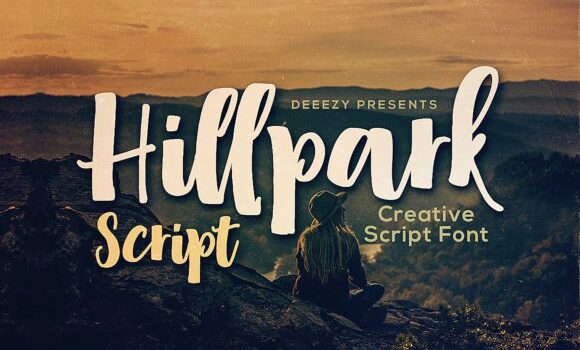
Hillpark Script Font - Featured Image
Hillpark Script Font – Free Download Introduction to Hillpark Script Font The Hillpark is a bold and handwritten style script for all your new projects. 📸 Preview Gallery 6 images 📌 Product Name Hillpark Script Font 👤 Author JumboDesign 📂